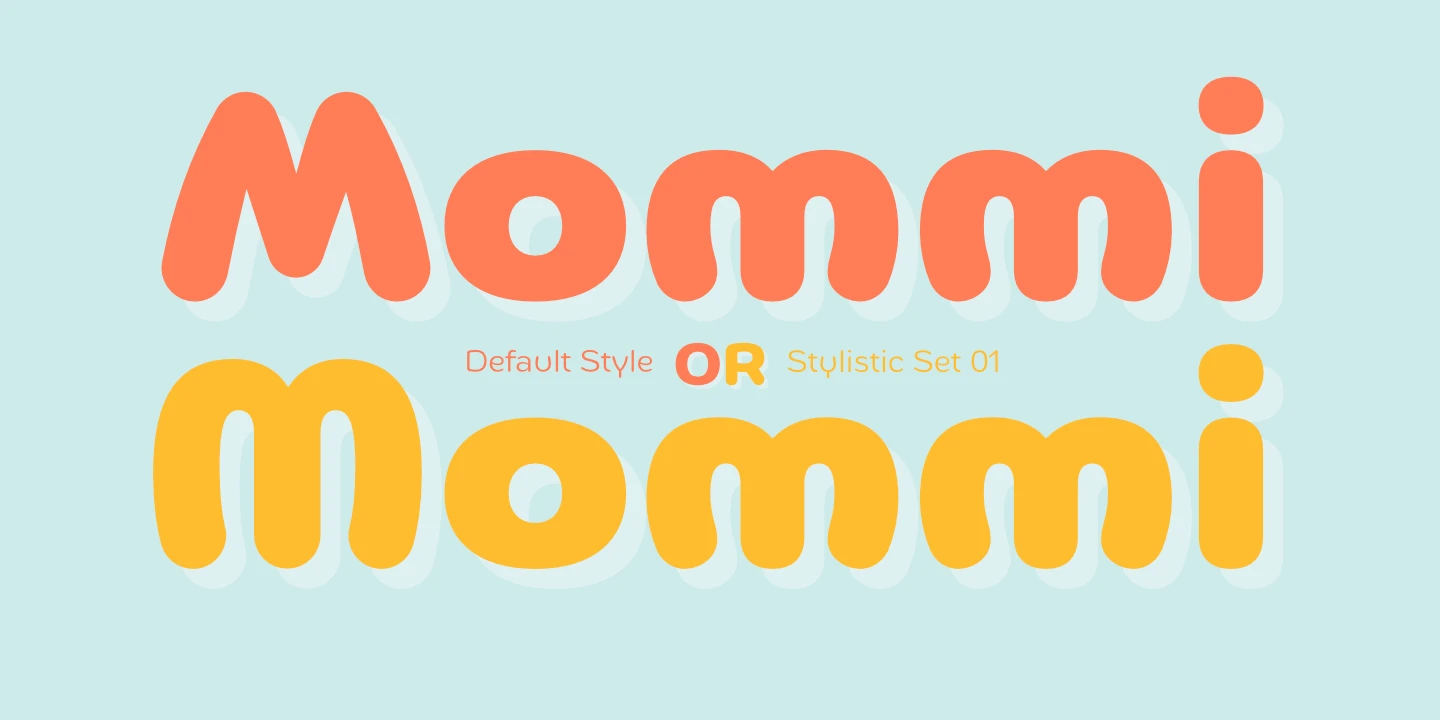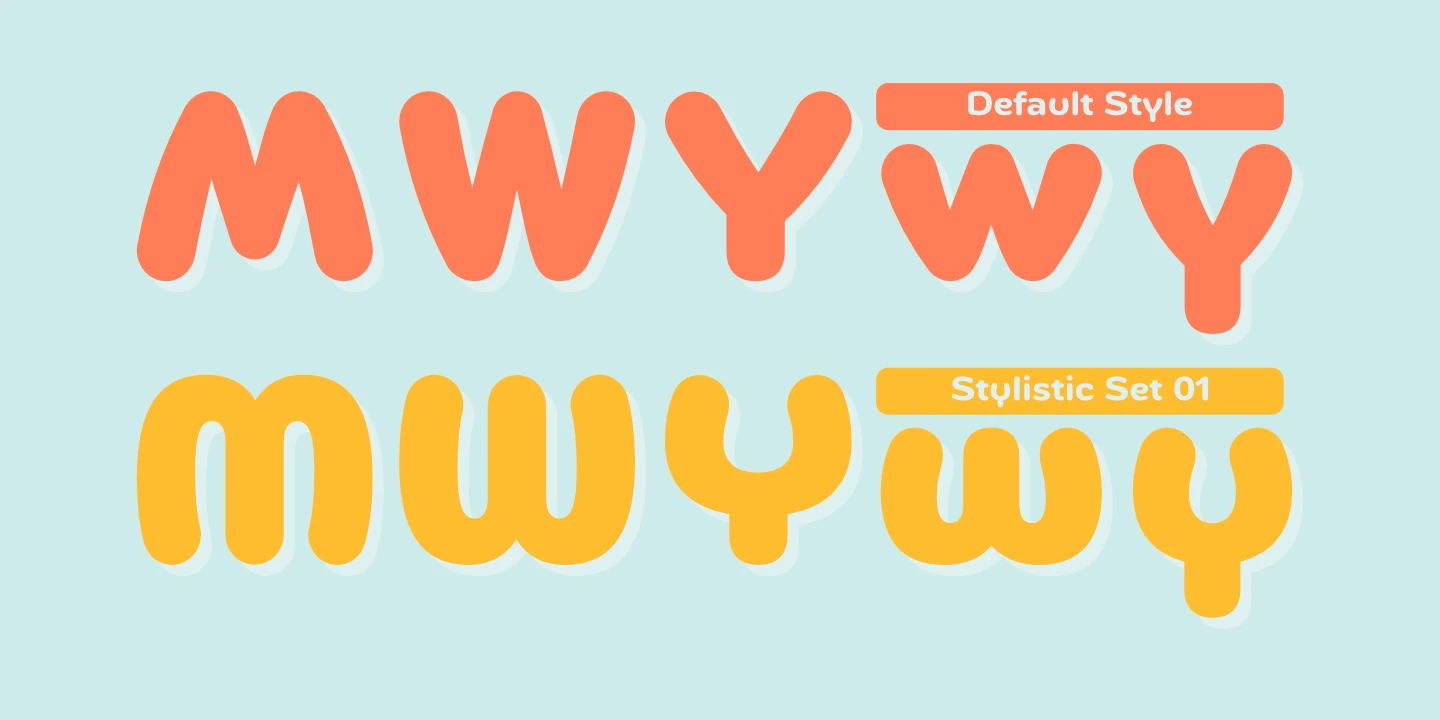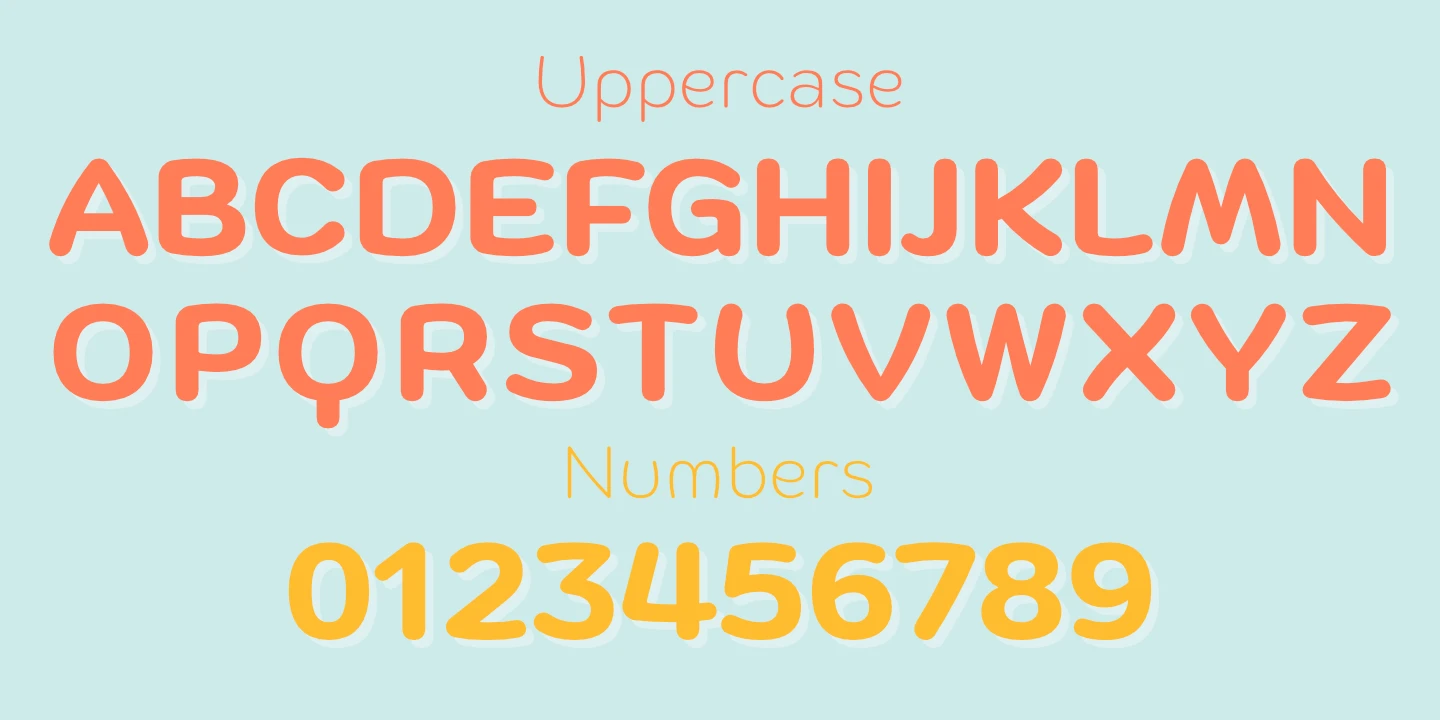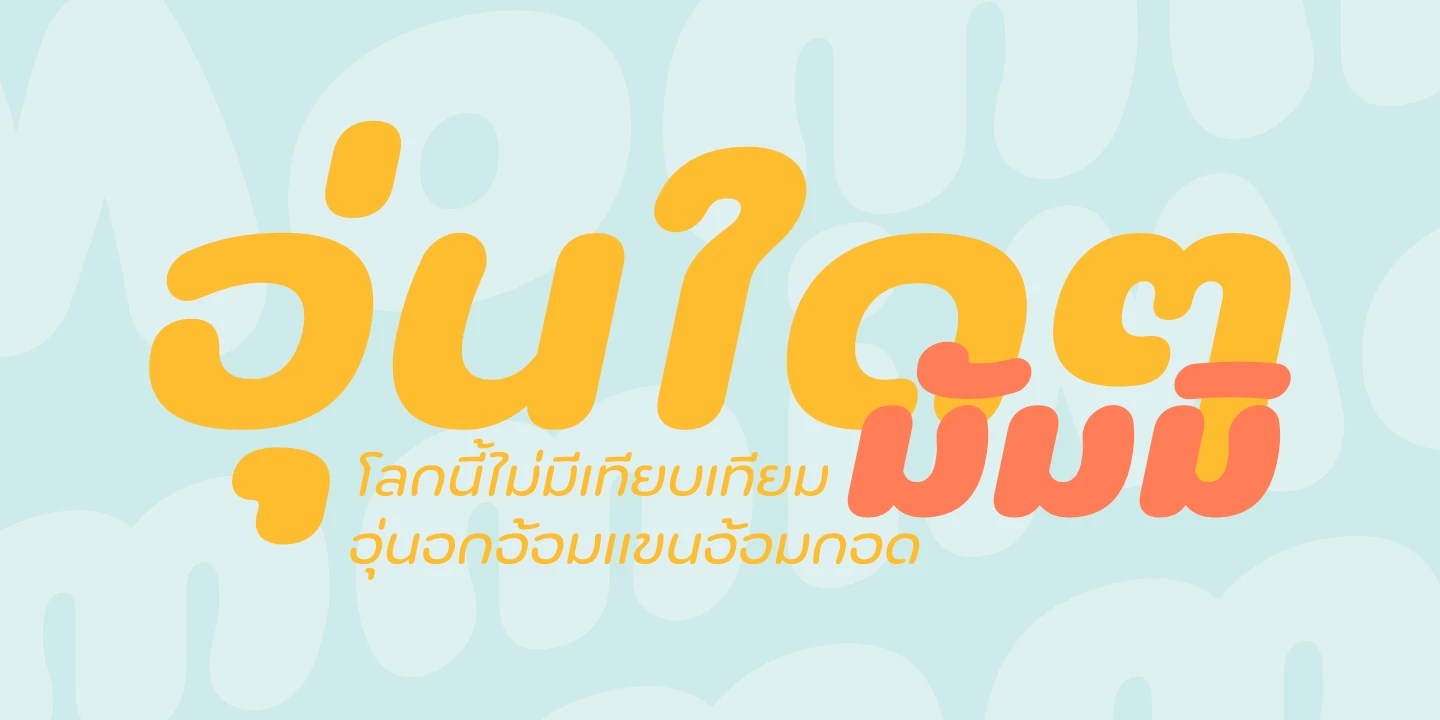
Mommi Font
About Mommi Font
I’m a typographer and graphic designer who’s always chasing fonts that bring personality to a brand. I discovered Mommi Font while browsing through display fonts for a visual identity project. The preview caught my eye immediately; the sharp edges and balanced curves had this modern yet approachable feel.
I decided to try it for a brand refresh concept, and it completely changed the tone of the design. It’s rare to find a typeface that feels so intentional and expressive at once. That’s why I wanted to share my honest thoughts and help other designers discover what makes Mommi Font so impressive.
The Font Type and the Designer
Mommi Font is a bold display typeface crafted by Jipatype, a designer known for creating fonts that stand out on headlines and signage. The style is confident, geometric, and ideal for designs that need to command attention. You can download Mommi Font free for personal projects or explore the commercial version for licensed branding use.
Each character carries unique weight and rhythm. The structure of the letters feels carefully engineered, almost sculpted, with subtle details that make words look lively and balanced. Even the Mommi Demo Bold, Medium, and ExtraBold variants have distinct personalities while staying consistent in form.
Key Features of Mommi display font
The Mommi Font has a distinctive display quality that makes it perfect for branding, posters, and logos. It feels balanced, bold but not overwhelming. Every character has a visual rhythm that keeps the text structured even when used in large sizes. When I previewed it in my font book, the smooth spacing stood out instantly.
Designers who want the full version or commercial use will appreciate the extra glyphs and weights included in the professional release. The full version available in 18 styles makes it versatile for both digital and print work. Whether you’re designing signage, packaging, or web layouts, it keeps readability while maintaining a creative edge.
Where Can You Use This Font?
This typeface thrives in creative branding projects. I’ve used Mommi Font for logo prototypes, ad layouts, and even on digital posters for a tech startup. It stands out in display settings where visual impact is key. When used in medium or bold weights, it captures attention without losing clarity.
Because it’s a display font, it works beautifully on packaging, fashion labels, or social media graphics. The Mommi Demo versions allow designers to preview how the font behaves in context before committing to a commercial version. The typography feels modern but adaptable; it fits minimalist branding as easily as bold editorial layouts.
If you’re a designer who likes testing new ideas, you’ll enjoy experimenting with this font. It pairs well with clean sans-serifs for contrast and can become the centerpiece of your layout. Once you’ve tested it in personal projects, you can buy a license for full access and use it in professional branding, marketing campaigns, or client presentations.